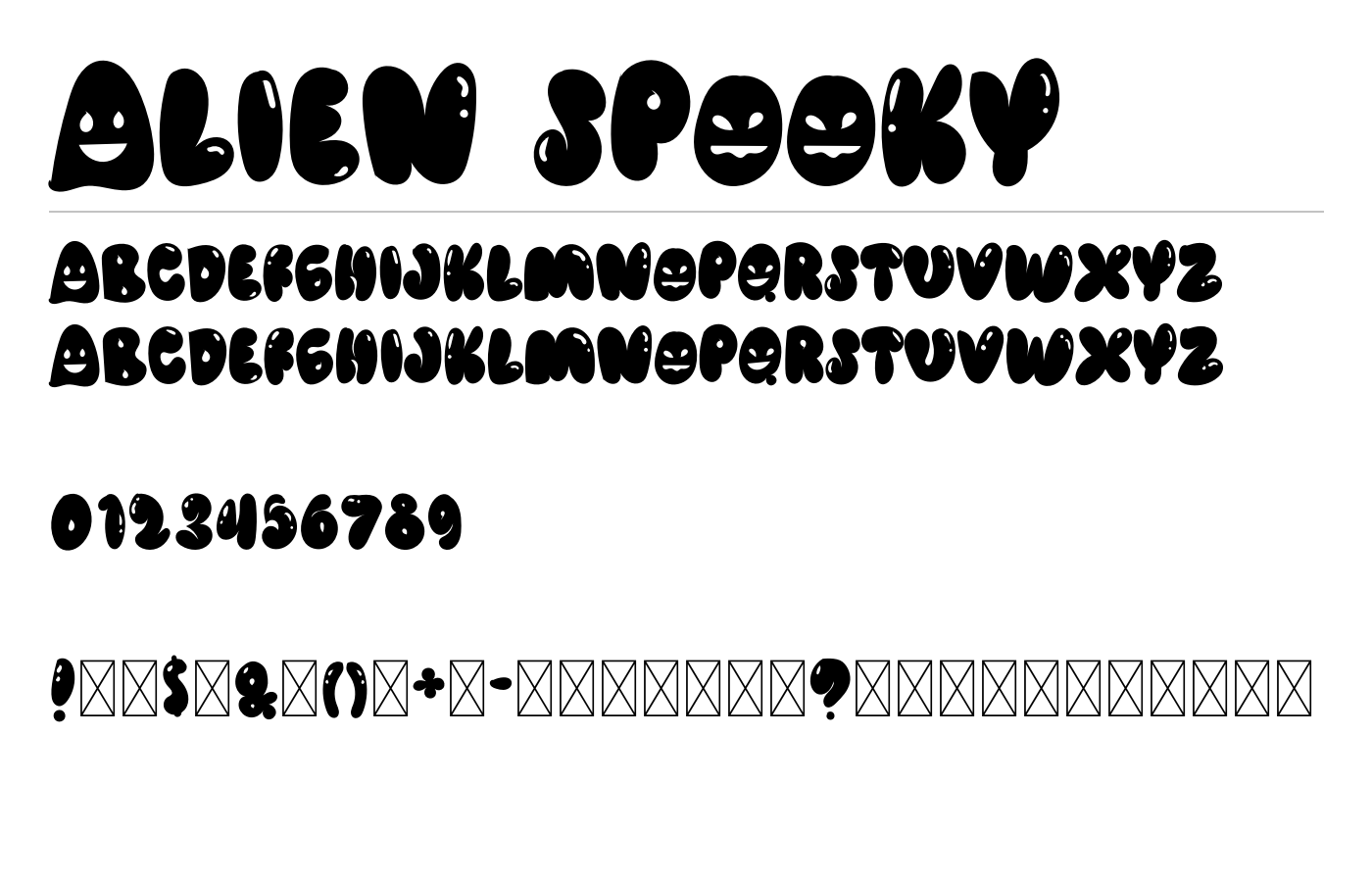
Alien Spooky is a bold, playful display font with a quirky, rounded sans serif style that features amusing facial expressions within some letters, giving it a fun, eerie personality. Its chunky weight and wide, bubbly shapes make it perfect for Halloween-themed designs, children’s party invites, or any creative project that calls for a spooky yet friendly vibe. This font works best in headlines, logos, or posters where its unique character and whimsical mood can stand out.
Alien Spooky Font
About Alien Spooky Font